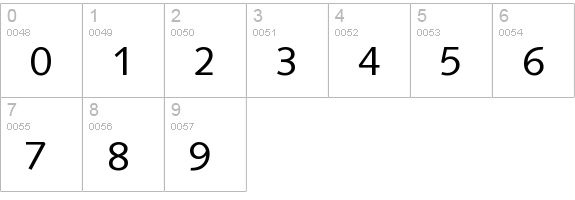
S841-Sans-Regular is the standard, neutral variant in the S841 typeface family \xE2\x80\x94 well suited to general body text, paragraphs, and standard typographic work.
S841 Sans Regular font is a modern and versatile typeface that combines clean lines with a touch of elegance. With its balanced letterforms and subtle geometric shapes, this font is perfect for a wide range of design projects, from branding to editorial design. What sets S841 Sans Regular apart is not only its timeless appeal but also the fact that it is available for free download at FontsMarket.com. Now you can elevate your projects with this high-quality font without any cost. Whether you're designing a logo, website, or printed materials, S841 Sans Regular will bring a professional and polished look to your work. Embrace the beauty of this font and enhance your designs with its sleek and sophisticated aesthetic.